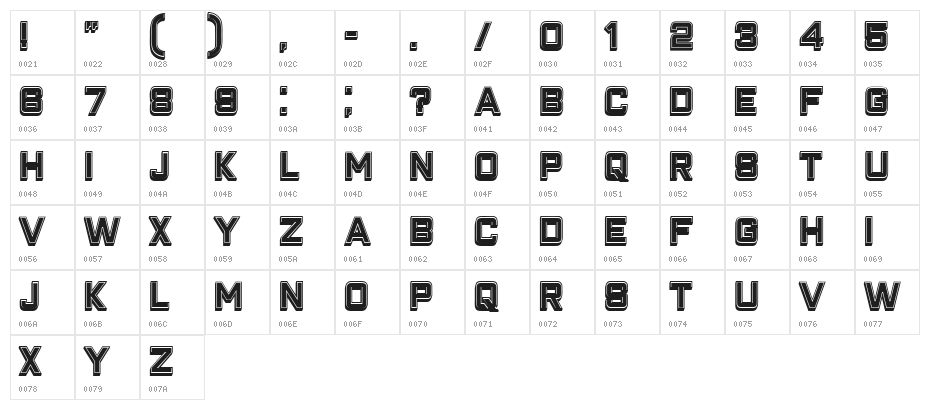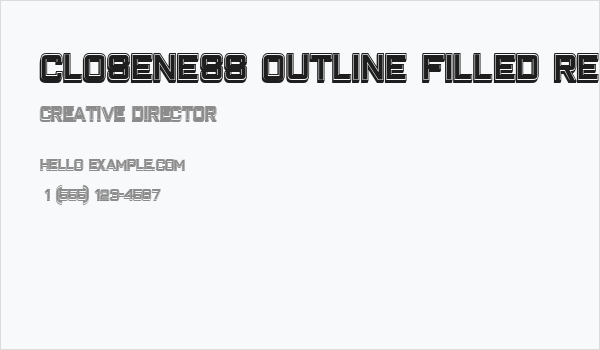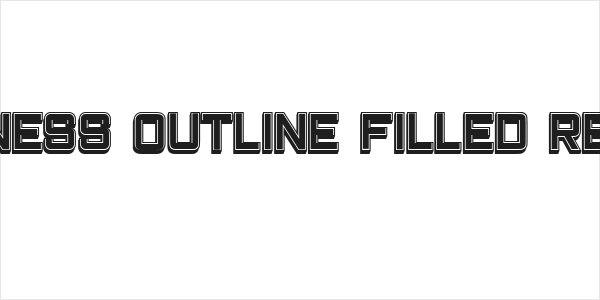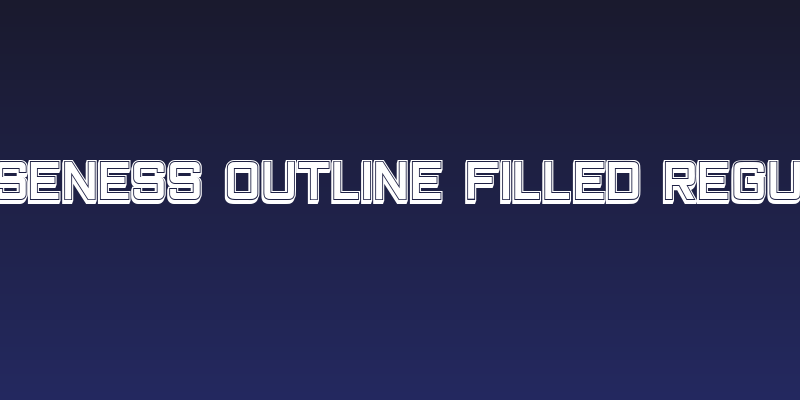
Closeness Outline Filled Regular Font
Closeness Outline Filled Regular Description
This font features a bold, geometric design with a distinctive outline and filled style. The uppercase letters are uniform in height, creating a strong and cohesive appearance. The numbers and special characters maintain the same bold outline, ensuring consistency across all characters. The font's structure is clean and modern, with sharp angles and straight lines that give it a futuristic feel. The filled interior of each character contrasts with the bold outline, enhancing readability and visual impact. This font is suitable for projects that require a strong, eye-catching typeface.
| Proposed Projects | Ideal for branding, posters, headlines, and any design requiring a strong visual impact. |